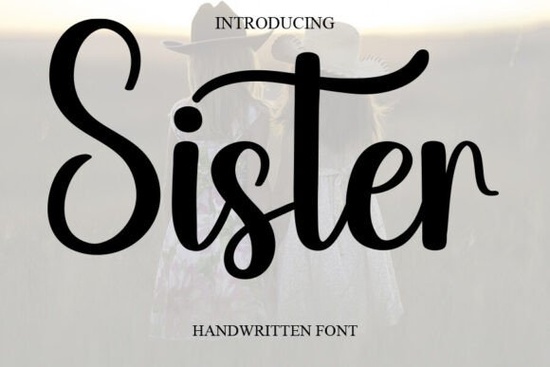
If you're looking for a handwritten script that feels personal, warm, and effortlessly stylish, the Sister Font might be exactly what your next project needs. With its gentle curves and natural flow, this cursive typeface brings a soft, romantic energy to everything from wedding invitations to boutique branding without tipping into overly formal territory.
Unlike stiff or overly ornate scripts, Sister maintains a relaxed elegance that still feels approachable. That balance makes it especially useful for small businesses and crafters who want their designs to feel both polished and human. Whether you're creating printable greeting cards, designing product labels, or laying out a fashion lookbook, this font adds character without overwhelming your message.
What kinds of projects work best with the Sister Font?
Sister shines in contexts where warmth and personality matter. Think of moments when your audience should feel like they’re receiving something made just for them not mass-produced. Here are a few natural fits:
- Wedding stationery: Invitations, place cards, and thank-you notes benefit from its delicate, heartfelt vibe.
- Branding for lifestyle businesses: Cafés, boutiques, florists, and wellness studios can use it for logos or packaging to convey care and authenticity.
- Greeting cards and gift tags: Its handwritten quality makes messages feel more intimate.
- Fashion and beauty lookbooks: Pair it with clean sans-serifs for contrast that’s both modern and feminine.
- Print-on-demand products: Mugs, tote bags, or wall art featuring short quotes or names look instantly more curated with Sister.
How does Sister compare to other script fonts?
Not all script fonts strike the same tone. Some lean dramatic, others minimalist or playful. Sister sits comfortably in the “sweet but not saccharine” zone. If you’ve liked fonts like Beach Summer for its breezy informality or Monday for its smooth readability, you’ll likely appreciate Sister’s similar ease but with a slightly more refined, romantic edge.
For those who enjoy calligraphy-inspired styles, Elemental Calligraphy offers more dramatic swashes, while Sister keeps things understated. And if your aesthetic leans toward simplicity, you might also consider pairing Sister with something like Minimalist Font for headings or body text to create visual hierarchy without clutter.
Another great companion? The Better Together Font, which shares a similar emotional warmth and works beautifully in duo-set designs perfect for anniversary gifts or couple-themed products.
Tips for using Sister effectively
Because Sister is a connected cursive, spacing and sizing matter more than with block fonts. Here’s how to get the best results:
- Avoid tiny sizes: At very small point sizes, the fine strokes can blur together, especially in print. Stick to 12pt or larger for readability.
- Use generous letter spacing only when needed: The font’s natural flow includes built-in connections. Artificially increasing tracking can break that rhythm.
- Pair wisely: Combine with a neutral sans-serif (like Montserrat or Lato) to let Sister’s personality shine without competing.
- Limit usage to headlines or short phrases: Like most scripts, it’s not ideal for long paragraphs. Save it for titles, names, or pull quotes.
Also, remember that context affects perception. On a rustic kraft paper tag, Sister feels artisanal. On a sleek white cosmetic label, it reads as luxurious. Test your design in its real-world setting whenever possible.
Is Sister right for your brand or project?
Ask yourself: Do I want my audience to feel a sense of closeness, care, or celebration? If yes, Sister could be a strong match. It’s not the font for corporate reports or tech manuals but for anything meant to evoke emotion, connection, or joy, it delivers quietly and consistently.
And because it’s available through Creative Fabrica, you get commercial-use rights included, which is essential if you’re selling designs or building client work.
- You need a script that’s elegant but not stiff
- Your project involves personal or celebratory messaging
- You’re comfortable using scripts selectively (not for body text)
- You want a font that pairs easily with modern minimalism
If most of these apply, give Sister a try it might just become your go-to for adding a human touch without losing polish.